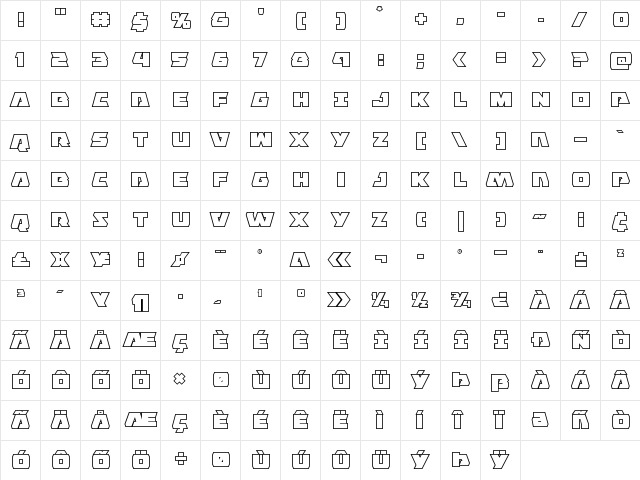
Eagle Strike Bold Outline Regular
Design Context for Eagle Strike Bold Outline Typeface
Eagle Strike Bold Outline brings ornamental detail and strong personality to headlines and identities, where visual impact matters more than quiet functionality. The heavy weight commands attention and anchors typographic hierarchies.
Font Pairing: Pair with a clean neutral sans-serif for body copy to let Eagle Strike Bold Outline's character lead without overwhelming the composition.
Pro Tip: Treat Eagle Strike Bold Outline as the centrepiece of your typographic hierarchy. One strong heading set in a decorative face can carry an entire layout.